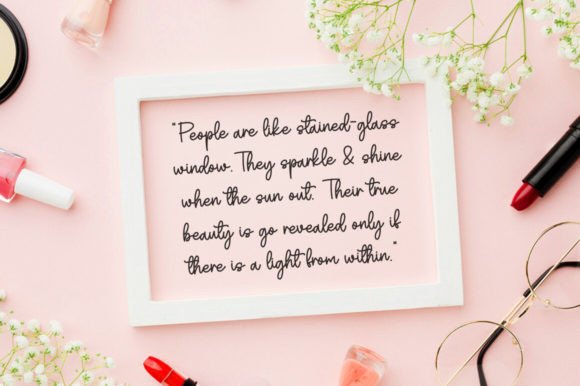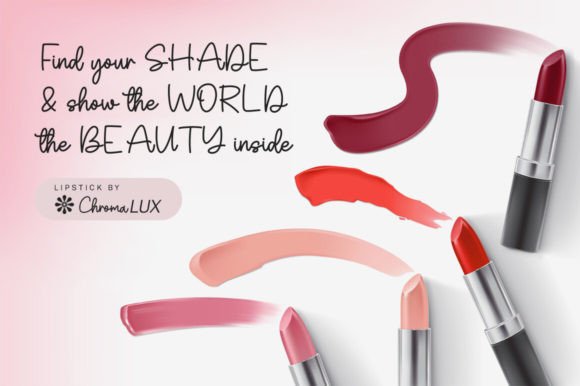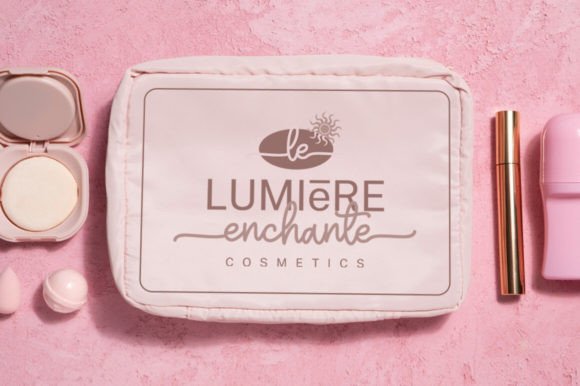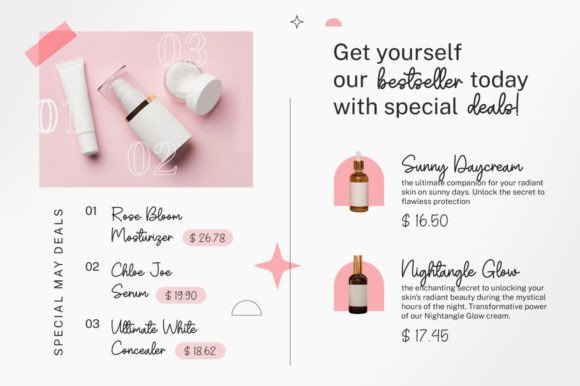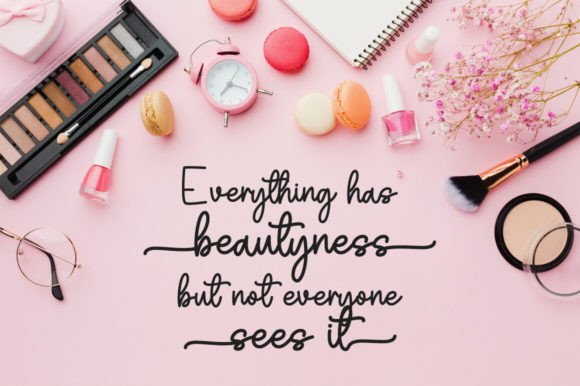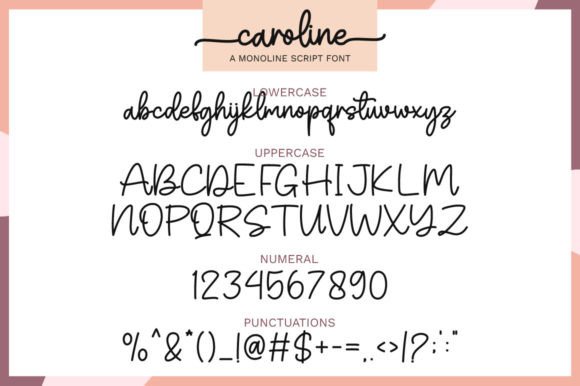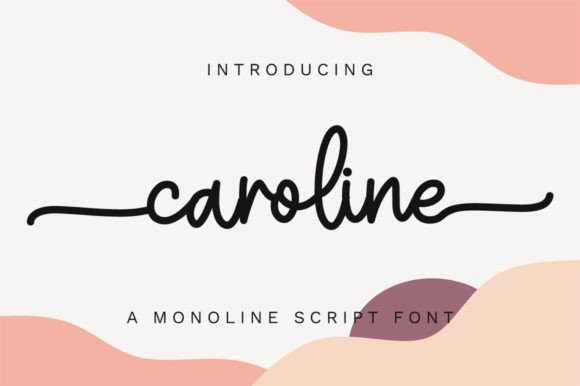
Discover the Charm of Caroline Font: A Timeless Handwritten Delight
Are you on the hunt for a font that exudes elegance, sophistication, and a touch of whimsy? Look no further than Caroline Font, a lovely and timeless handwritten font that’s perfect for creating eye-catching logos, branding, and quotes. In this article, we’ll dive into the world of Caroline Font and explore its features, benefits, and uses, making it a must-read for designers and crafters alike.
What Makes Caroline Font So Special?
Caroline Font is a beautifully crafted handwritten font that’s designed to add a personal touch to your designs. Its unique charm lies in its effortless, cursive flow, making it perfect for creating elegant and sophisticated text-based designs. Whether you’re looking to create a stunning logo, a captivating quote, or a cohesive brand identity, Caroline Font is the ideal choice.
Key Features of Caroline Font
- Timeless Design: Caroline Font boasts a classic, timeless design that’s sure to never go out of style.
- Handwritten Charm: Its handwritten nature adds a personal touch to your designs, making them stand out from the crowd.
- PUA-Encoded: Caroline Font is PUA-encoded, which means you can access all of the glyphs and swashes with ease, giving you maximum creative flexibility.
- Elegant and Sophisticated: The font’s elegant and sophisticated feel makes it perfect for high-end branding, luxury logos, and refined designs.
Benefits of Using Caroline Font
So, why should you choose Caroline Font for your next design project? Here are just a few benefits of using this stunning font:
- Instant Recognition: Caroline Font’s unique design ensures instant recognition and recall, making it perfect for logos and branding.
- Emotional Connection: The font’s handwritten nature creates an emotional connection with your audience, making your designs more relatable and engaging.
- Versatility: Caroline Font is incredibly versatile, suitable for a wide range of design applications, from digital to print.
- Easy to Use: With its PUA-encoded feature, you can easily access all the glyphs and swashes, making it simple to use and customize.
Design Applications for Caroline Font
Caroline Font is an incredibly versatile font that can be used in a variety of design applications, including:
- Logo Design: Create stunning logos that exude elegance and sophistication.
- Branding: Develop a cohesive brand identity with Caroline Font’s unique and recognizable style.
- Quote Design: Add a touch of whimsy and elegance to your quotes and social media graphics.
- Stationery and Invitations: Create beautiful stationery and invitations that showcase your personal style.
Tips and Tricks for Using Caroline Font
To get the most out of Caroline Font, here are a few tips and tricks to keep in mind:
- Experiment with Glyphs and Swashes: Take advantage of Caroline Font’s PUA-encoded feature to experiment with different glyphs and swashes.
- Mix and Match: Combine Caroline Font with other fonts to create a unique and eye-catching design.
- Play with Colors: Experiment with different colors and textures to add depth and interest to your designs.
- Keep it Simple: Don’t be afraid to keep things simple and elegant – Caroline Font’s beauty shines through in its simplicity.
In conclusion, Caroline Font is a timeless and lovely handwritten font that’s perfect for designers and crafters looking to add a touch of elegance and sophistication to their designs. With its PUA-encoded feature, versatile design, and emotional connection, Caroline Font is an excellent choice for a wide range of design applications. So why wait? Discover the charm of Caroline Font today and take your designs to the next level!